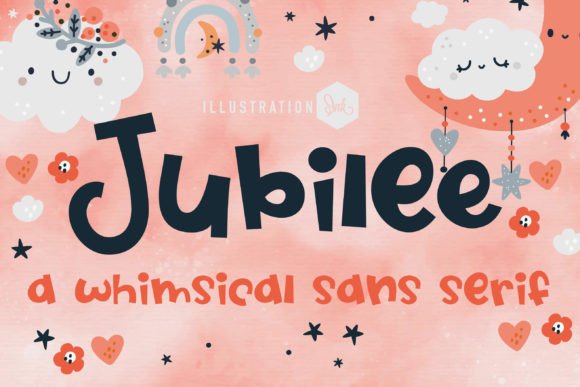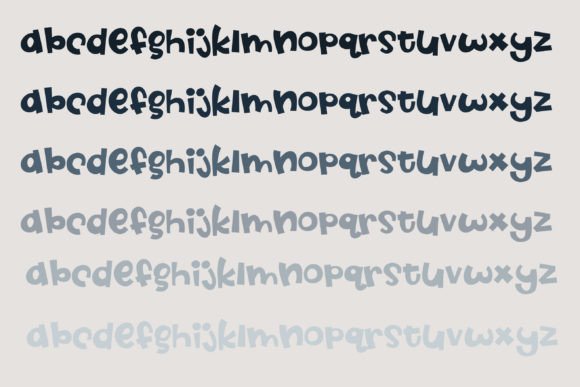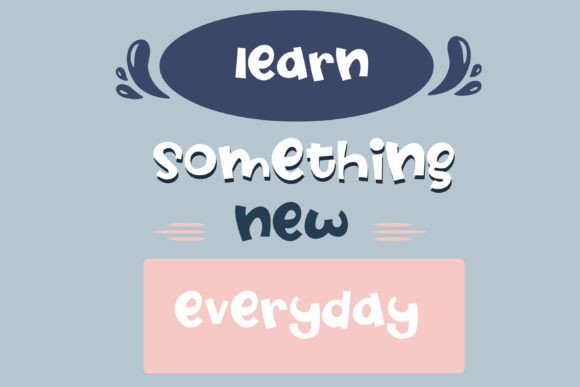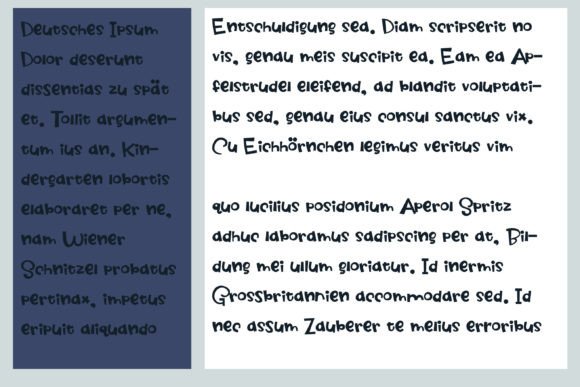
Jubilee Font
About the Jubilee Font
Elevate your designs with Jubilee Font, a font that combines sophistication with readability. This hand-crafted sans serif is a whimsical font with a bit of toggle and bounce on the baseline.
Bold version included.
Jubilee Font’s playful energy makes it ideal for headlines, short-form content, and branding applications where a lighthearted, approachable feel is desired. It works exceptionally well on packaging for children’s products or in playful marketing campaigns. Avoid using it for body text or long paragraphs; its whimsical nature hinders readability in extended blocks of text. UI applications are also unsuitable due to legibility concerns.
The font’s personality is best described as cheerful and slightly quirky. Pairing it with a clean sans-serif like Open Sans for body copy creates a balanced contrast, or a more geometric sans-serif like Futura for a modern, sophisticated take. For a touch of elegance, consider pairing it with a delicate script font, though keeping the script usage minimal to prevent visual overload.
A bold choice, such as using Jubilee for a logo, combined with a neutral serif for supporting text, would provide a strong visual hierarchy while maintaining its playful character.
Jubilee Font Usage Examples
Jubilee Font Example